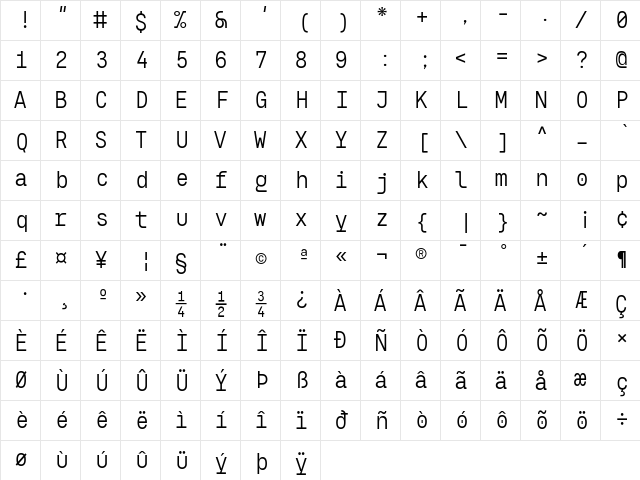
Eingrantch Mono Medium
| Foundry | Harmnessless |
| Designer | Akbar Rohmanto |
Design Context for Eingrantch Mono Typeface
Eingrantch Mono uses fixed-width spacing throughout, giving it the structured, systematic character associated with coding environments and technical documentation.
Pro Tip: Pair Eingrantch Mono with a proportional sans for UI contexts where code-style labels and regular body copy need to coexist.